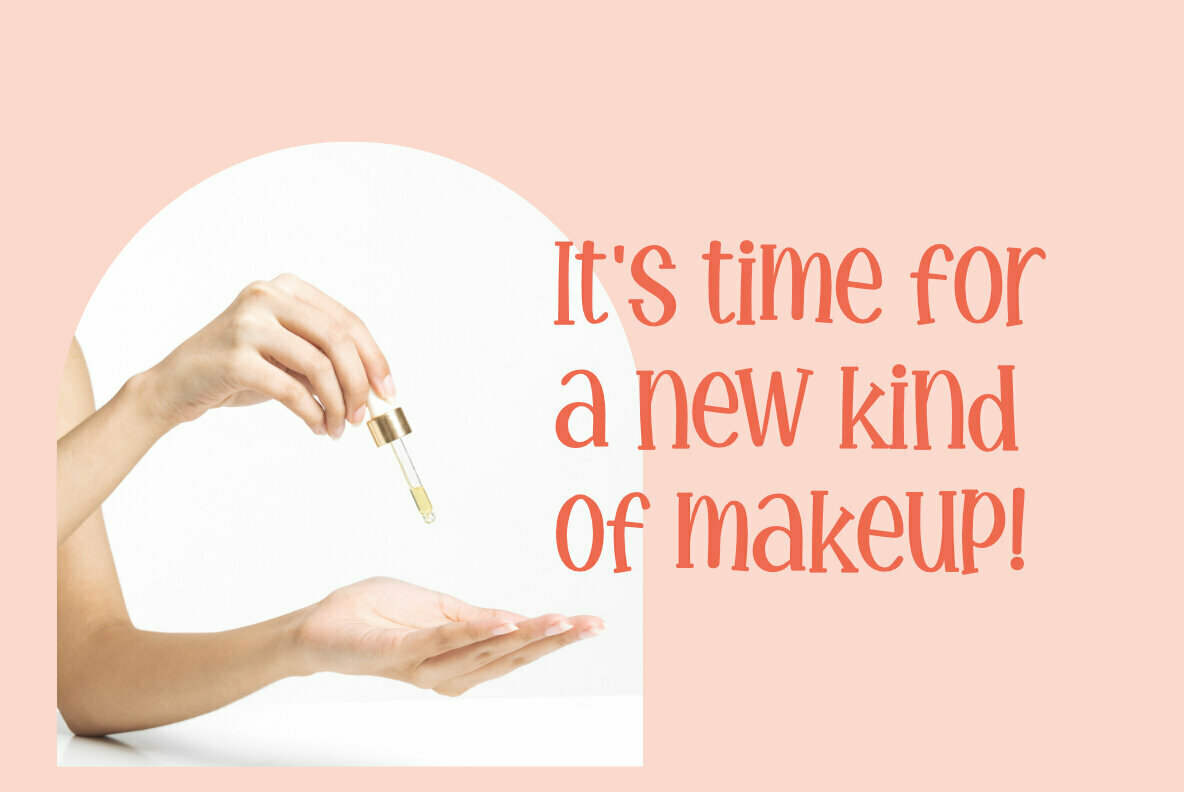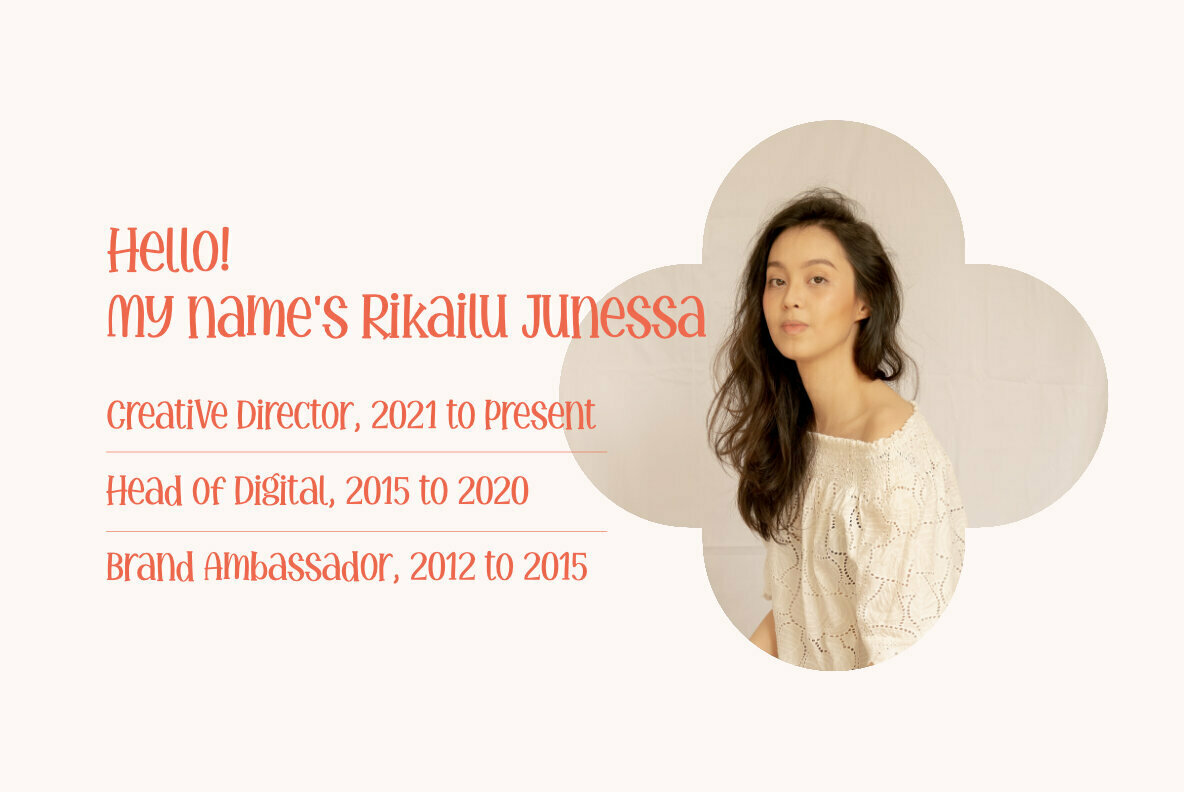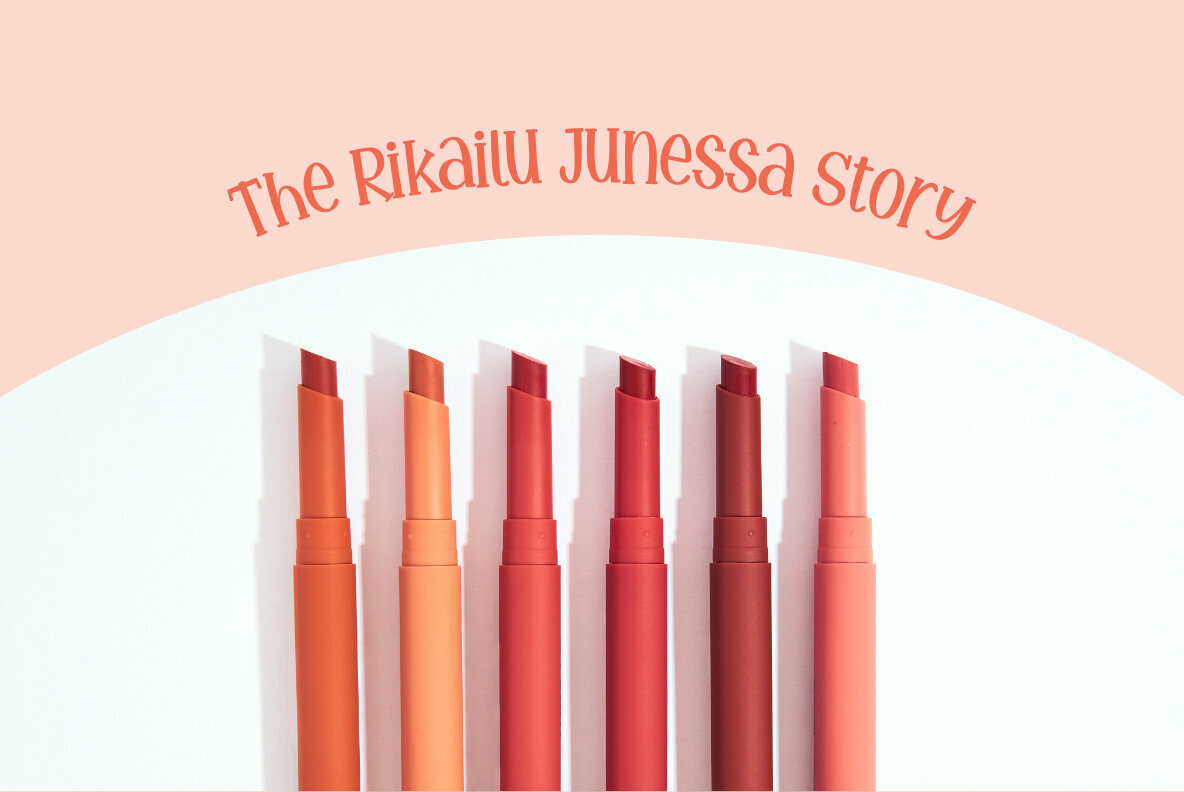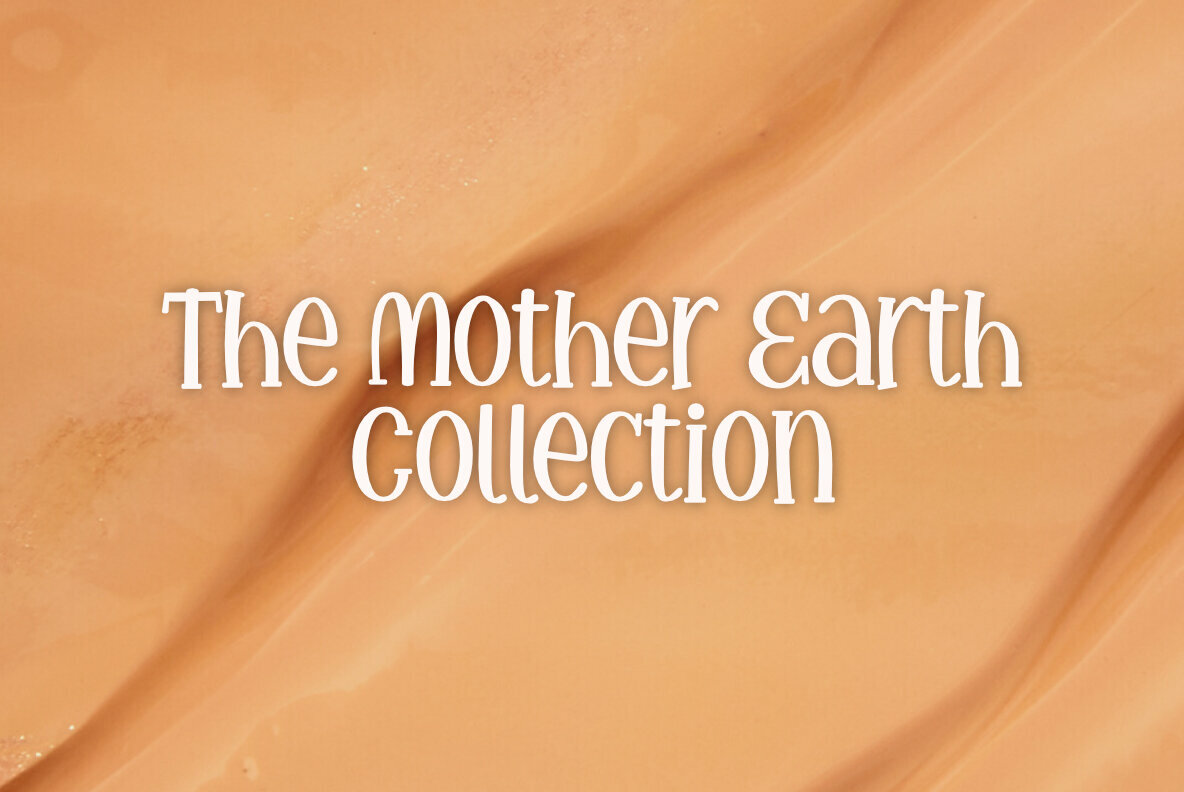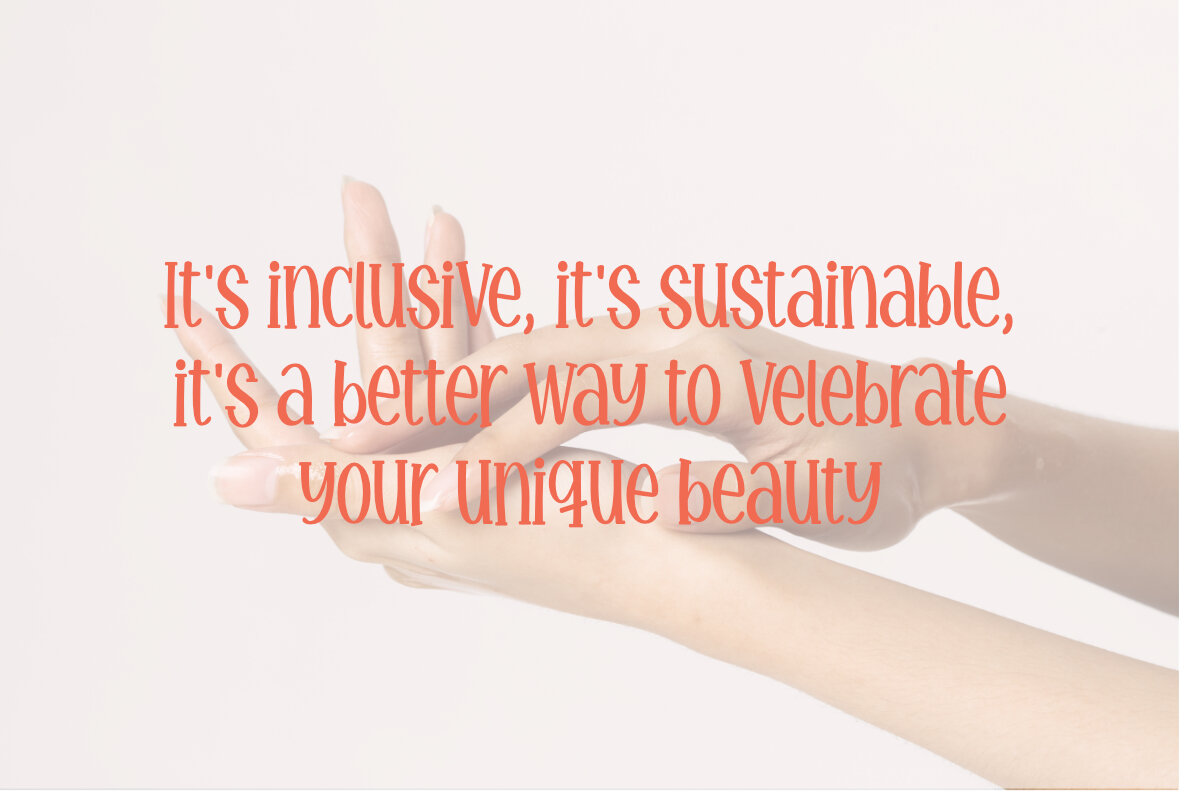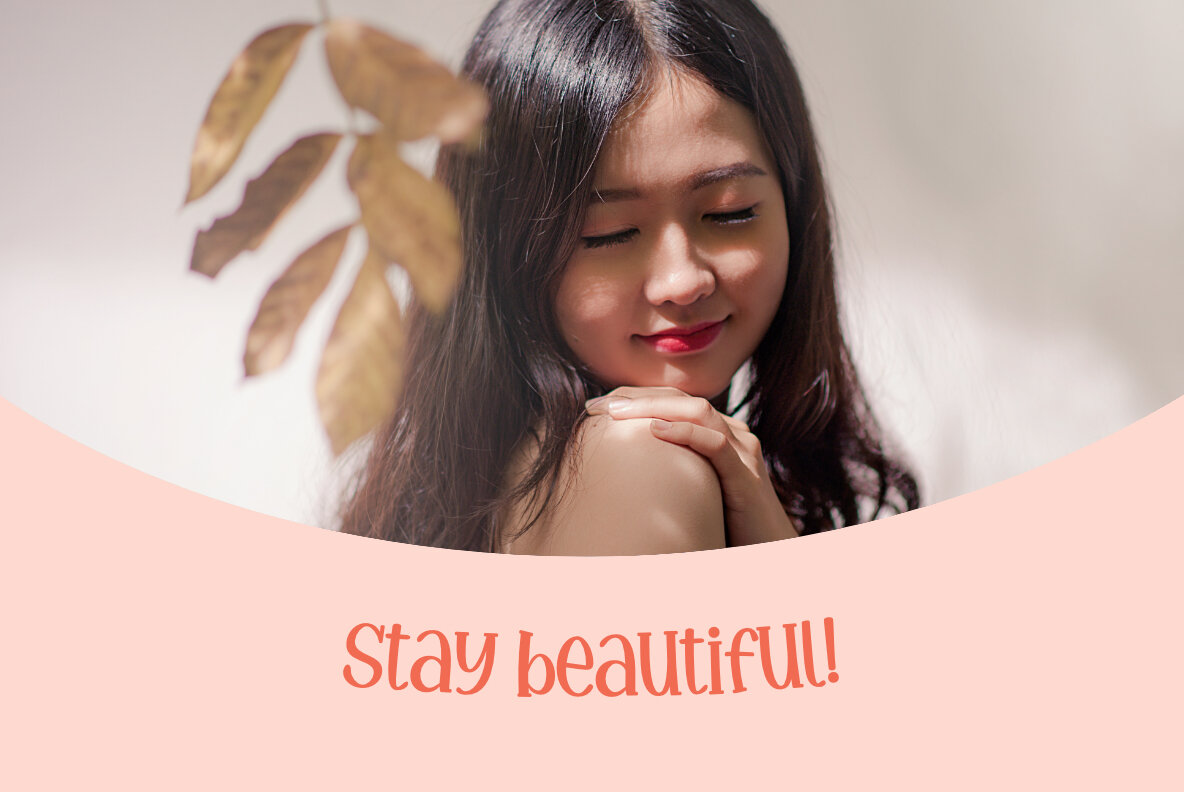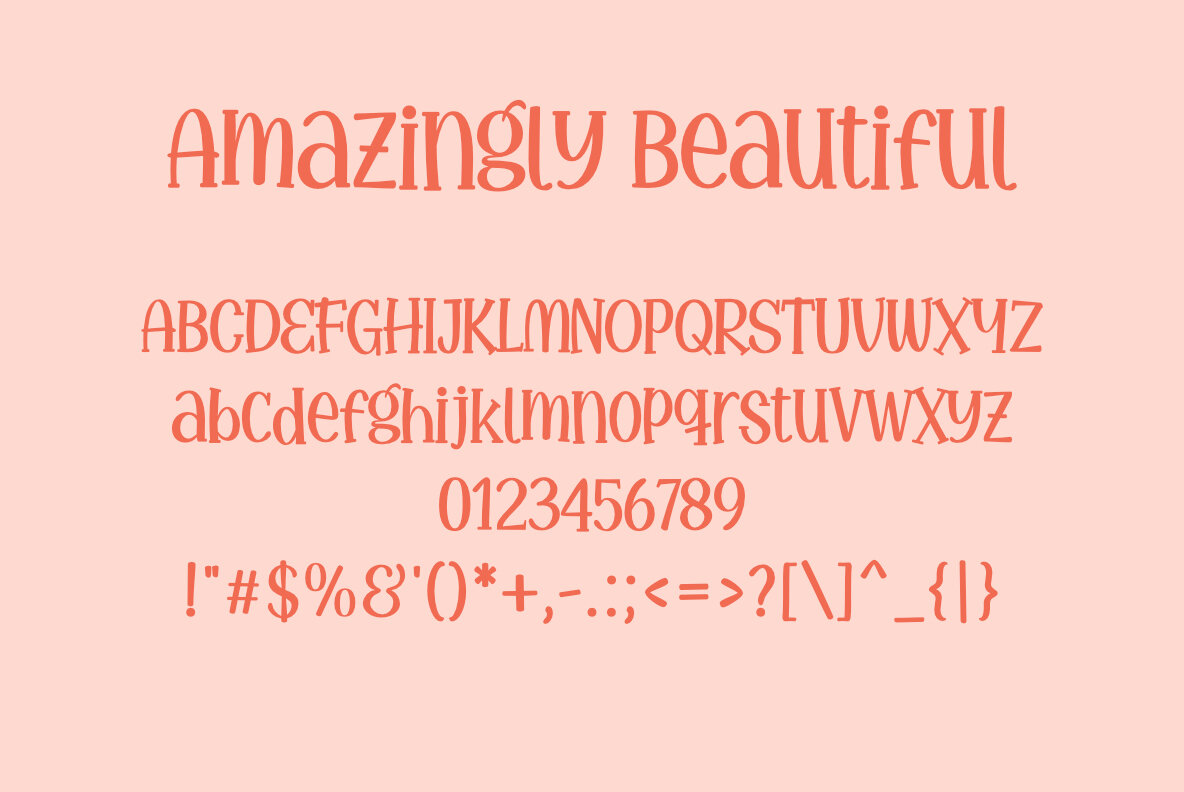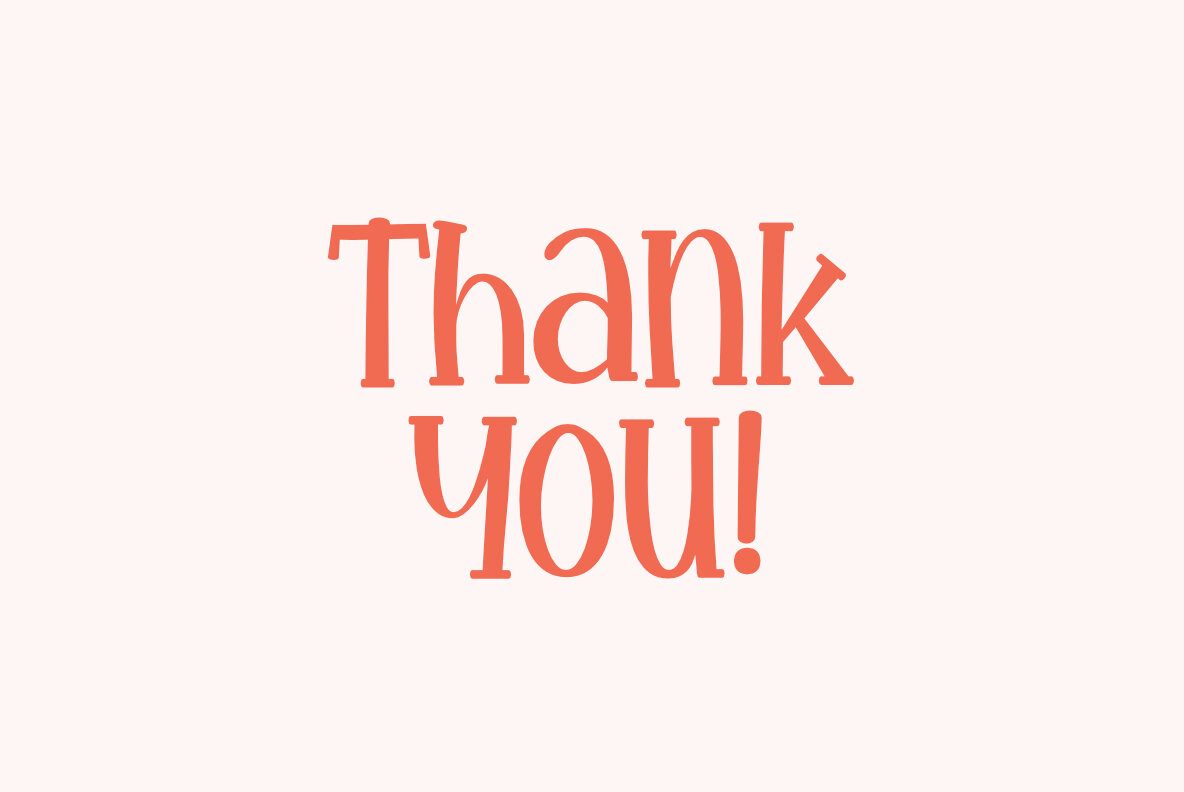
Amazingly Beautiful Font
Amazingly Beautiful Regular
Amazingly Beautiful is a cute, quirky and whimsical display font. Whether you use it for cartoon related designs, children games or just any creation that requires a lovely touch, this font will be an amazing choice.